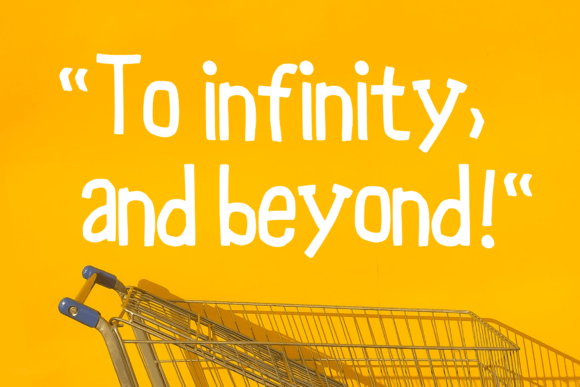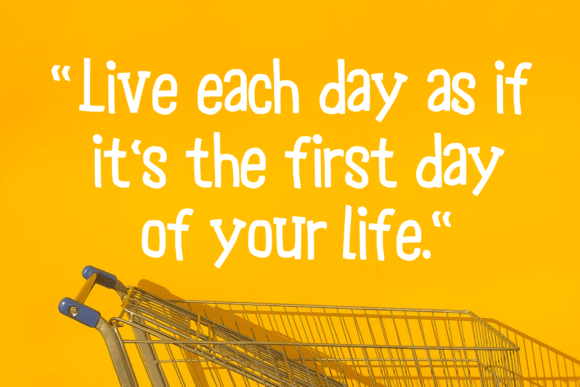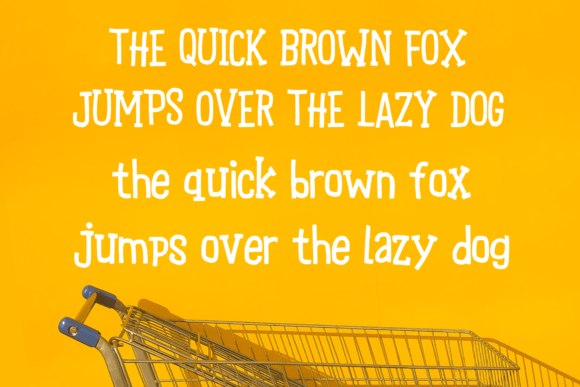
Grocery Store Font
About Grocery Store Font
Grocery Store is a fun and friendly hand-lettering font that adds a casual and joyful feel to any design project. It was created to help you express creativity and warmth in a wide range of applications. From t-shirts and kids’ books to posters and stickers, this font makes every project feel approachable and fresh.
Hand-Lettered and Playful Style
Grocery Store has a distinctive hand-drawn look with slightly uneven lines and natural curves. These details give it an authentic, organic feel, almost like it was written by hand with care. This playful style makes it perfect for projects that need a touch of personality.
The letters are easy to read while still feeling unique. That balance ensures your message is clear but never boring.
Versatile and Ready for Any Project
One of the greatest strengths of Grocery Store is its incredible versatility. Here are just a few ideas for how you can use this font:
• T-Shirts: Create fun and casual apparel designs with messages that pop.
• Kids’ Books: Make storybooks more engaging and lively for young readers.
• Stickers: Design playful stickers for planners, notebooks, or packaging.
• Posters: Add a relaxed, hand-crafted feel to event posters or signs.
• Greeting Cards: Send heartfelt messages with a warm, inviting style.
• Product Labels: Give small business products a homemade and approachable look.
Whatever your project, Grocery Store helps you capture a cheerful and relaxed mood.
Easy to Use and Customizable
Pair Grocery Store with simple sans-serif fonts for balance, or use it on its own as a bold statement piece. It also looks great with colorful backgrounds and textured elements, adding to its playful energy.
Bring Joy to Every Design
Grocery Store isn’t just a font. It’s a way to make your designs more joyful, authentic, and memorable. From playful kids’ products to relaxed branding projects, this font adds an uplifting spirit that resonates with any audience.
If you want your work to feel personal and inviting, Grocery Store is the perfect choice.